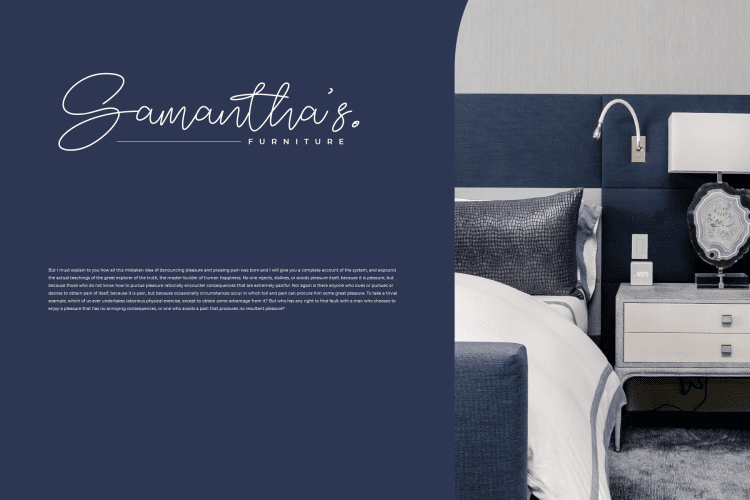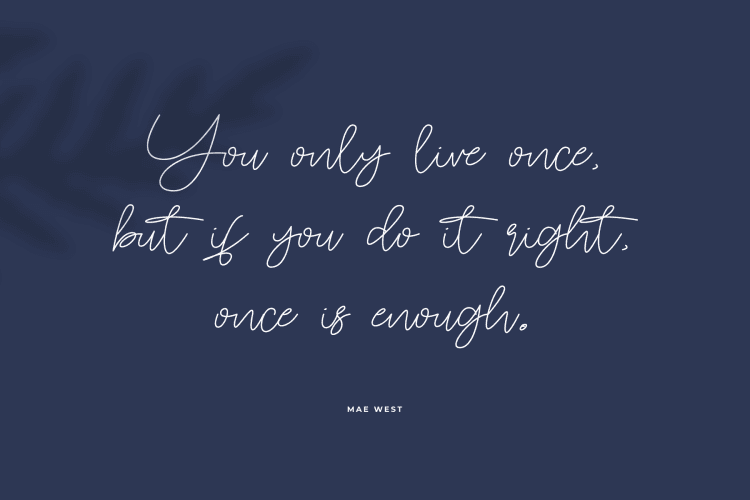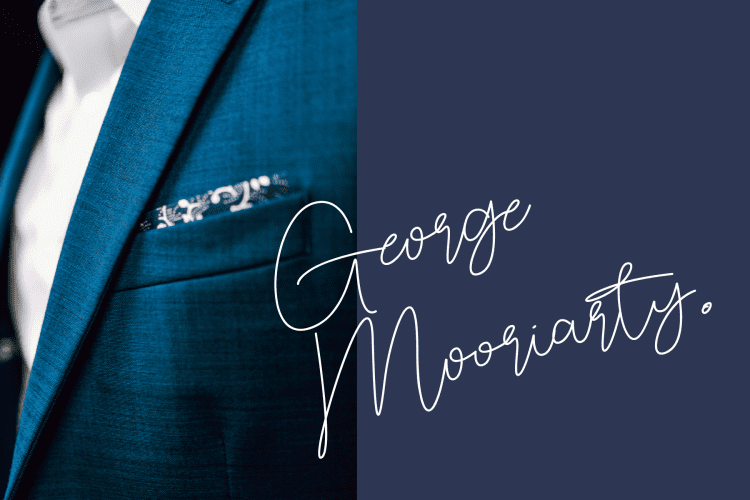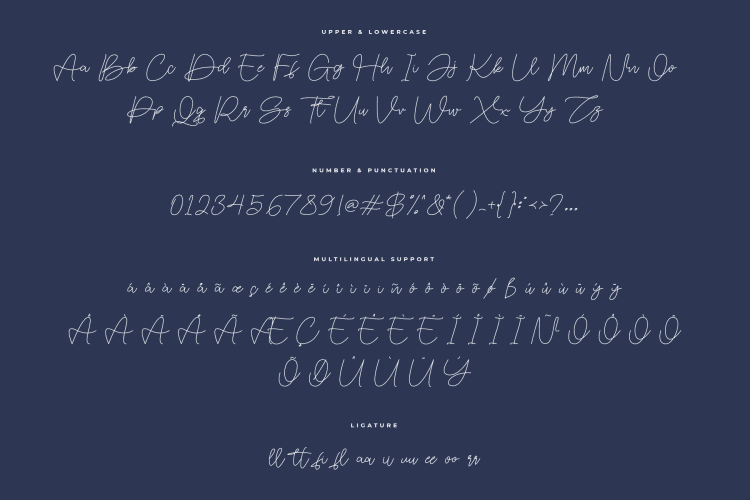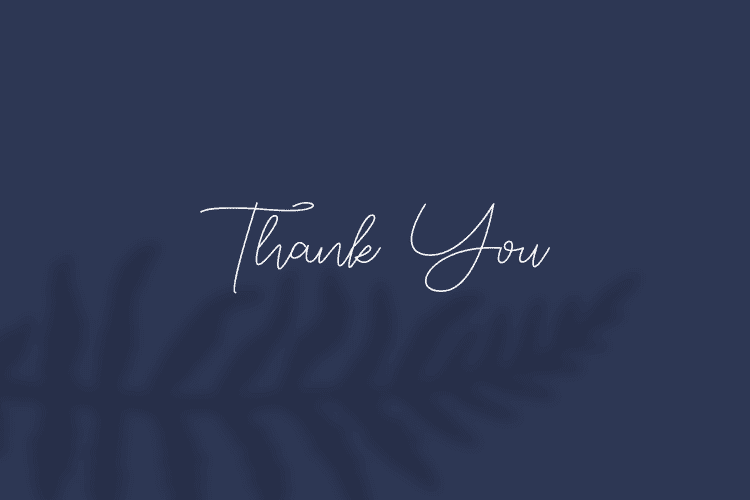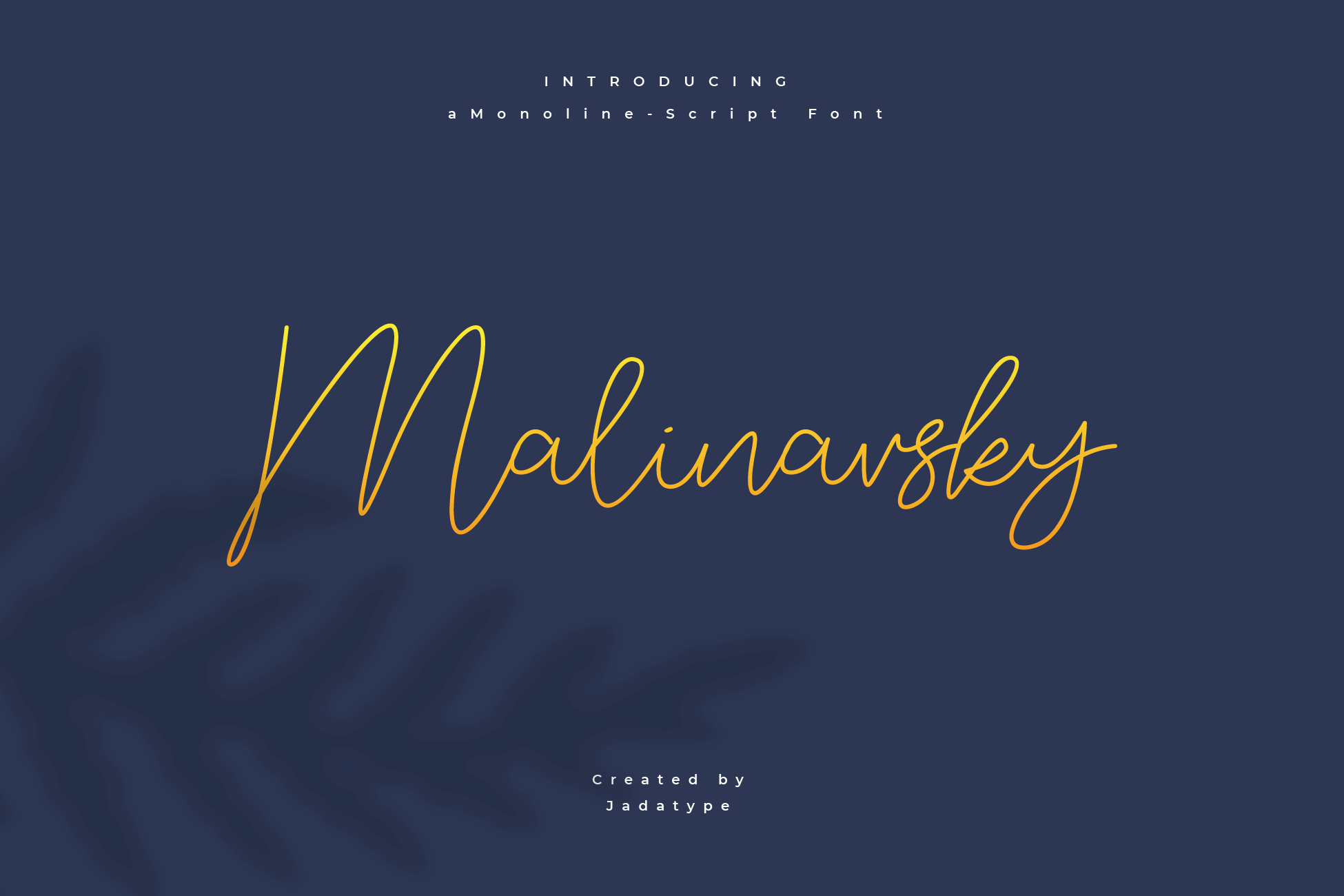
Malinavsky
Malinavsky is a script font with monoline lines that gives the impression of smooth, simple, but elegant writing. It can be used for your wedding needs, diaries, crafts, invitation cards, and others. contains standard English, multilingual, and ligature letters.
Malinavsky – Monoline Signature